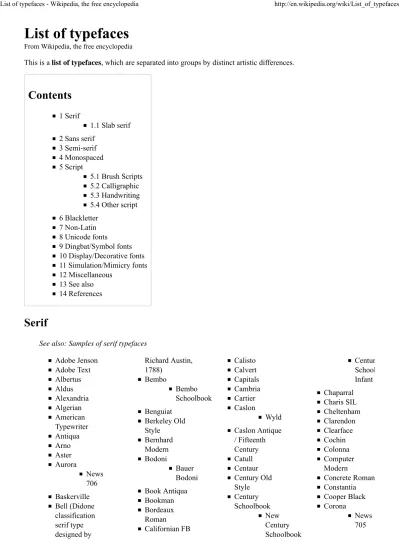
This is a list of typefaces, which are separated into groups by distinct artistic differences.
Adobe Jenson Adobe Text Albertus Aldus Alexandria Algerian American Typewriter Antiqua Arno Aster Aurora News 706 Baskerville Bell (Didone classification serif type designed by Richard Austin, 1788) Bembo Bembo Schoolbook Benguiat Berkeley Old Style Bernhard Modern Bodoni Bauer Bodoni Book Antiqua Bookman Bordeaux Roman Californian FB Calisto Calvert Capitals Cambria Cartier Caslon Wyld Caslon Antique / Fifteenth Century Catull Centaur Century Old Style Century Schoolbook New Century Schoolbook Centur School Infant Chaparral Charis SIL Cheltenham Clarendon Clearface Cochin Colonna Computer Modern Concrete Roman Constantia Cooper Black Corona News 705
DejaVu Serif Ecotype (proprietary font used in The Economist) Elephant Espy Serif Excelsior News 702 Fairfield FF Scala Folkard Footlight FreeSerif Friz Quadrata Garamond Gentium Georgia Gloucester Goudy Old Style/Goudy Goudy Schoolbook Goudy Pro Font Granjon Heather Hercules High Tower Text Hiroshige Hoefler Text Humana Serif Imprint Ionic No. 5 News 701 Janson Jenson Joanna Korinna Legacy Serif Lexicon Liberation Serif Linux Libertine Literaturnaya Lucida Bright Melior Memphis Miller Minion Modern Mona Lisa Mrs Eaves MS Serif (included with all Microsoft Windows versions, superseded by Times New Roman) New York (one of the original Macintosh system fonts) Nimbus Roman NPS Rawlinson Roadway Palatino Book Antiqua (from Monotype, similar to Palatino) Perpetua Plantin Schoolbook Playbill Poor Richard Rawlinson Roadway Renault Requiem Rockwell Roman (vector font included with Windows 2.1) Rotis Serif Sabon Scala Seagull Sistina Souvenir STIX, see also XITS Stone Informal Stone Serif Sylfaen Times New Roman Times (Linoty version of Times New Roman Trajan Trinité Trump Mediaeval Utopia Vale Type Vera Serif Versailles Wanted Weiss Wide Latin Windsor XITS
Slab serif
Apex Berthold City Cholla Slab Egyptienne Guardian Egyptian Museo Slab RockwellSee also: Samples of sans serif typefaces
Abadi Agency FB Akzidenz Grotesk Aptifer Arial Arial Unicode MS Avant Garde Gothic Avenir Bank Gothic Barmeno Bauhaus Bell Centennial AT&T telephone directory typeface designed by Matthew Carter, 1978 Bell Gothic AT&T telephone directory
typeface designed by Chauncey H. Griffith, 1938 Benguiat Gothic Berlin Sans Beteckna Blue Highway (Close replica of Highway Gothic) Cafeteria Calibri Century Gothic Charcoal (Mac OS 9 system font) Chicago (pre-Mac OS 9 system font, still included with Mac OS X) Clearface Gothic Clearview Co Headline Co Text Corbel Coolvetica Dax DejaVu Sans Dotum Droid Eras Espy Sans Nu Sans (Martin Pfeiffer (http://www.scootergraphics.com/) 's TrueType version of Espy Serif) Eurocrat Eurostile Square 721 FF Meta FF Scala Sans Flama Formata BQ FreeSans Franklin Gothic Frutiger NEXT Futura Geneva (one of the original Macintosh system fonts) Gill Sans Schoolbook Gotham Handel Gothic Denmark Haettenschweiler Helvetica Neue Swiss 721 Highway Gothic Hiroshige Sans Hobo Impact Industria Interstate Johnston/New Johnston Kabel Legacy Sans Liberation Sans Lucida Sans (Lucida Grande is the Mac OS X system font) Meiryo Microgramma Modern (vector font included with Windows 2.1) Motorway (used on British motorway signs for route numbers) MS Sans Serif (included with all Microsoft Windows versions, superseded by Arial) Museo Sans Myriad Neutraface News Gothic Nimbus Sans L Nina Optima Parisine (used by the RATP on their jurisdictions of Paris's transit system) Pricedown Prima Sans PT Sans (made for all minority languages of Russian Federation) Rail Alphabet Revue Rotis Sans Scala Sans Segoe UI Skia (the first QuickDraw GX font, still found in Mac OS X today) Souvenir Gothic Stone Sans Syntax Tahoma Tiresias Trade Gothic Transport (used on British road signs) Trebuchet Trump Gothic Tw Cen Twentieth Century Ubuntu Univers Zurich Vera Sans Verdana Virtue
Amsterdam Old Style Divona
Nyala Portobello Rotis Semi Serif Tema Cantante
Andale Mono Arial Monospaced
Bitstream Vera (Vera Sans Mono) Consolas Courier CourierHP Courier New CourierPS Fontcraft Courier DejaVu Sans Mono Droid Sans Mono Everson Mono, also known as Everson Mono Unicode. Fedra Mono Fixed Fixedsys Excelsior Inconsolata HyperFont Letter Gothic Liberation Mono Lucida Console
Lucida Sans Typewriter Lucida Typewriter MICR (Magnetic Ink Character Recognition, several fonts)
Menlo Miriam Fixed Monaco (one of the original Macintosh system fonts) Monofur Monospace MS Gothic MS Mincho Nimbus Mono L OCR-A (Optical Character Recognition) OCR-B Orator Ormaxx PragmataPro
Prestige Elite also known as Prestige (similar to Courier)
ProFont (A freeware font designed for easy
readability at small sizes) Proggy Programming Fonts
Small Fonts
Sydnie (included with QuickTime)
Terminal Terminus Tex Gyre Cursor UM Typewriter Vera Sans Mono (Bitstream Vera) William Monospace
Brush Scripts
Balloon Brush Script Caflisch Script Dragonwick Choc Dom Casual Mistral Papyrus Segoe Script Tempus SansYear Supply of Fairy Cakes
Calligraphic
Amazone AMS Euler Apple Chancery Aquiline Aristocrat Bickley Script Civitype Codex Edwardian Script Forte French Script Kuenstler Script Monotype Corsiva Old English Text MT Palace Script Park Avenue Scriptina Shelley Volante Vivaldi Vladimir Script Zapf Chancery ZapfinoHandwriting
Andy Ashley Script Chalkboard Comic Sans Cézanne Dom Casual Fontoon Jefferson Kristen Lucida Handwriting Rage Italic Rufscript Scribble Soupbone TektonOther script
Cinderella Cupola Curlz Magnificat Script (vector font included with Windows 2.1)American Text Cloister Black Fraktur
Goudy Text Lucida Blackletter Old English Text
Wedding Text
See also: List of CJK fonts
Aharoni (Contains Hebrew Set)
Amienne (Cyrillic brush script font by Ray Larabie) Batak Script Chandas Hanacaraka, a Traditional Javanese Script Japanese Gothic
Jomolhari Font - (Tibetan script)
Kochi
Lontara Script, The Lontara script is a
Brahmic script
traditionally used for the Bugis, Makassarese, and Mandar languages of Sulawesi in modern Indonesia.
Meiryo, a Japanese sans-serif gothic typeface Minchō Mona MS Gothic Nastaliq Navees Perpetua Greek[1] SimSun Sundanese Unicode, a Sundanese Script Sylfaen is a multi-script serif font family, for various non-Latin scripts Tai Le Valentinium Tengwar Noldor Tengwar Quenya Tengwar Sindarin Tibetan Machine Uni Tunga, a Unicode typeface included in Windows XP that displays Kannada script
Wadalab
Main article: Unicode typefaces
List of Unicode fonts showing the number of characters/glyphs included for the released version, and also showing font's license type.
Alphabetum (shareware, includes a few SMP character blocks. Over 5,490 characters in version 9.00) Arial Unicode MS (distributed along with Microsoft Office (2002XP, 2003). only supports up to Unicode 2.0. Contains 50,377 glyphs (38,917 characters) in v1.01.)
Batang and Gungsuh, a serif and monospace/gothic font, respectively; both with 20,609 Latin/Cyrillic/CJK glyphs in version 2.11. Distributed with Microsoft Office.
Cyberbit (free for non-commercial use. 29,934 glyphs in v2.0-beta.) Bitstream Vera
ClearlyU (Freeware. This family of bitmap fonts provides a set of 12 pt, 100 dpi proportional BDF fonts with many of the glyphs needed for Unicode text. 9,538 glyphs in v1.9.)
Code2000 (shareware Unicode font; supports the entire BMP. 63,888 glyphs in v1.15.) Code2001 (freeware; supports the SMP. 2,944 glyphs in v0.917.)
Code2002
DejaVu fonts (free. "DejaVu Sans" includes 3,471 glyphs and 2,558 kerning pairs in v2.6) Doulos SIL (free; designed for IPA. 3,083 glyphs in v4.014.)
Everson Mono (also known as, Everson Mono Unicode. Shareware; contains all non-CJK characters. 4,899 glyphs in Macromedia Fontographer v4.1.3 2003-02-13.)
Fixedsys Excelsior (freeware, 5,992 glyphs in v3.01, supports most glyphs in the basic plane except CJK)
Free UCS Outline Fonts (freeware, "FreeSerif" freefont includes 3,914 glyphs in v1.52, MES-1 compliant)
Gentium (free. 1,699 glyphs in v1.0.1, 2003.) GNU Unifont
Georgia Ref (also distributed under the name "MS Reference Serif," extension of the Georgia typeface) Junicode (free; includes many obsolete scripts, intended for mediævalists. 2,235 glyphs in v0.6.12.) LastResort (fallback font covering all 17 Unicode planes, included with Mac OS 8.5 and up) Lucida Grande (Unicode font included with Mac OS X; includes 1,266 glyphs)
Lucida Sans Unicode (included in more recent Microsoft Windows versions; only supports ISO 8859-x characters. 1,776 glyphs in v2.00.)
Gulim/New Gulim and Dotum, rounded sans-serif and non-rounded sans-serif respectively, (distributed with Microsoft Office 2000. wide range of CJK (Korean) characters. 49,284 glyphs in v3.10.)
MS Gothic version 2.30 (14,965 glyphs with CJK and condensed Latin/Cyrillic), MS PGothic (14,965 glyphs with CJK and normal Latin/Cyrillic), MS UI Gothic (stronger kerns), distributed with Microsoft Office
MS Mincho version 2.30 (14,965 glyphs, CJK, condensed Latin), MS PMincho (14,965 glyph, normal), distributed with Microsoft Office
STIX (especially mathematics, symbols and Greek, see also XITS)
Titus Cyberbit Basic (free; updated version of Cyberbit. 9,779 glyphs in v3.0, 2000.) Unicode fallback font (freeware fallback font for Windows)
URW++ Nimbus Sans Global
Verdana Ref (also distributed under the name "MS Reference Sans Serif," extension of the Verdana typeface)
Y.OzFontN (free. wide range of CJK (Japanese) characters. Includes few SMP character blocks. 59,678 glyphs in v9.13.)
XITS (especially mathematics, symbols and Greek)
Apple Symbols (Included with Mac OS X) Bookshelf Symbol 7
Cambria Math Commercial Pi Computer Modern Corel
HM Phonetic (raster; consists of Greek letters and various symbols) Lucida Math
Mathematical Pi (Greek, Fraktur, and mathematical blackboard bold letters, mathematical symbols, with a larger glyph set than Symbol)
OpenSymbol (Included with OpenOffice.org)
Symbol (consists of Greek letters and mathematical symbols) SymbolPS Wingdings 2 Wingdings 3 Webdings Zapf Dingbats
See also: Samples of display typefaces
Abracadabra Ad Lib Allegro Andreas Arnold Böcklin Astur Balloon Pop Outlaw Black Banco Bauhaus Beat Braggadocio
Broadway Caslon Antique Chiller Cooper Black Curlz Ellington Exocet FIG Script Forte Gigi Harlow Solid Harrington Horizon Jim Crow Jokerman Juice Lo-Type Magneto Megadeth Neuland Peignot Ravie San Francisco Showcard Gothic Snap Stencil Umbra Westminster Willow Windsor
Bagel Lithos Papyrus Skia 3x3 8514oem Ashley Inline Braggadocio Continuum Medium Fixedsys Grasset Kahana LED Pythagoras System (Windows 3.x default) Tema Cantante Terminal (CP437 Windows font) Westminster Font family (HTML) Font-management program Gaelic type